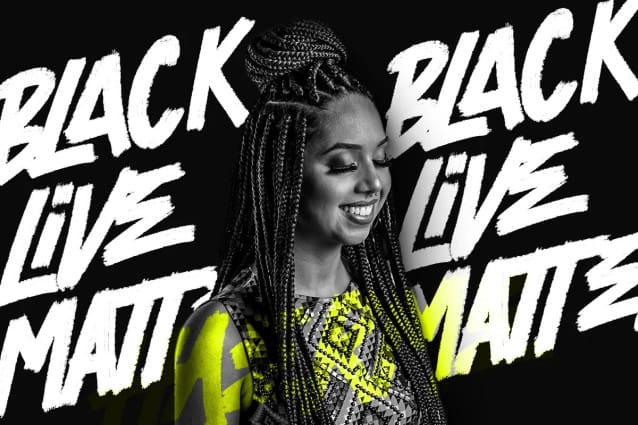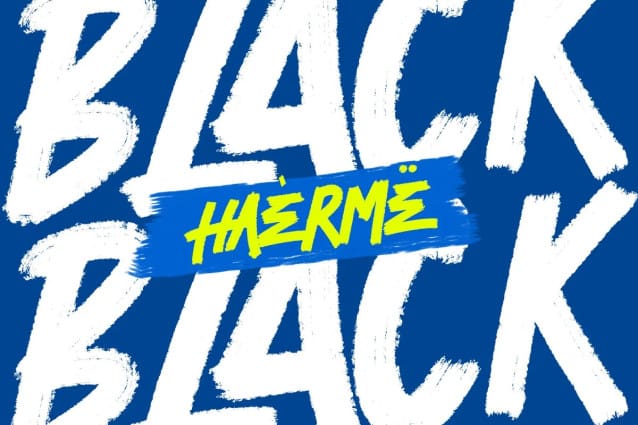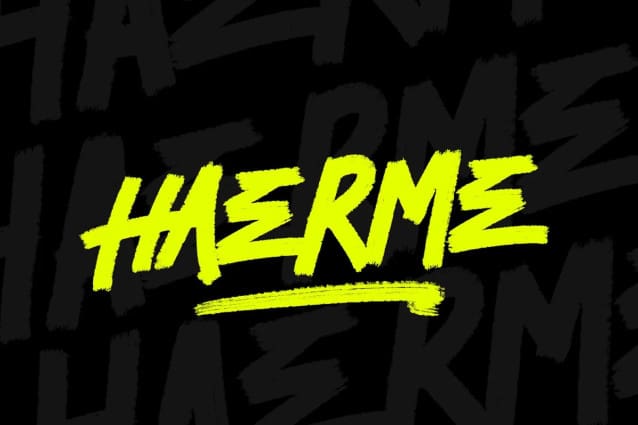
Haerme Brush Font
Haerme Brush Font an all-capital brush font that elevates your typography game. Crafted by hand with meticulous care, each letter exudes a distinctive touch and texture that sets it apart. This font is more than just letters—it’s a visual experience, where every character tells a story of creativity and individuality. Embrace the unique allure of HAERME for designs that demand attention and a touch of handmade sophistication.